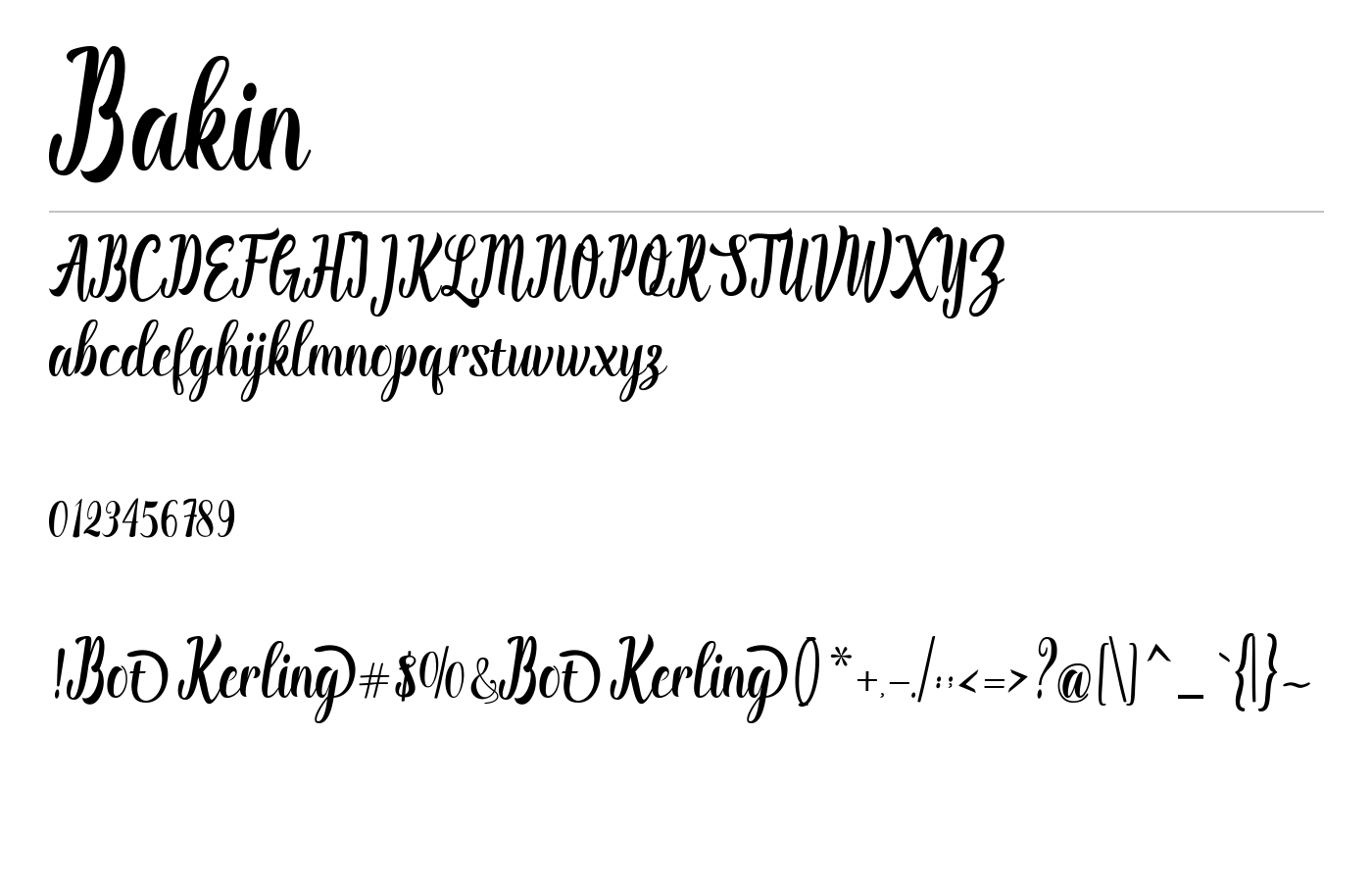
Bakin is a stylish script font with elegant, flowing letterforms and a medium weight that balances readability with decorative flair. Its tall, slender characters with smooth curves and moderate contrast give it a graceful and modern feel, making it ideal for branding, invitations, and editorial projects that seek a sophisticated yet approachable touch. This font works well in headlines and display text where a chic, handwritten look can add personality and charm.
Bakin Font
About Bakin Font